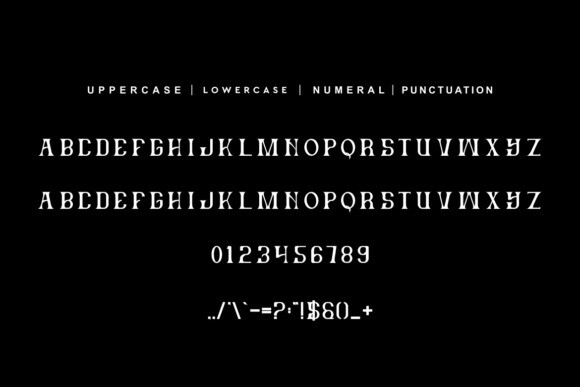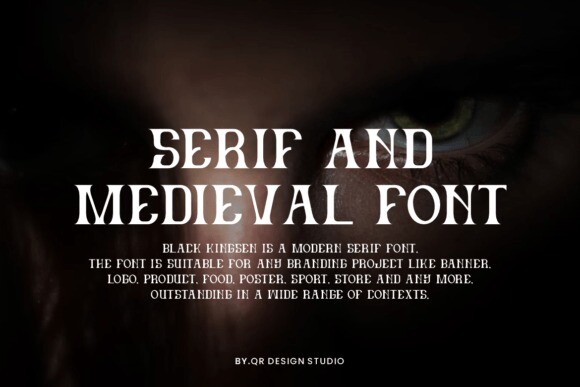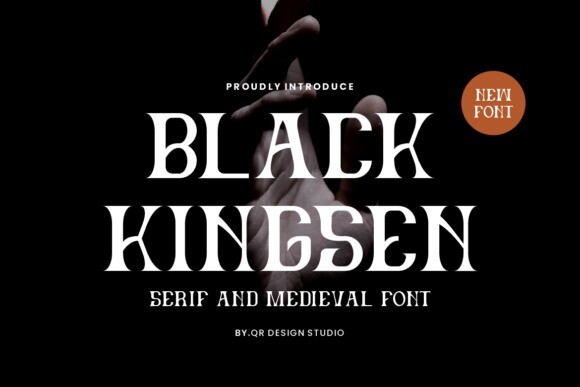
Black Kingsen Font
Designer: qrdesignstd
Black Kingsen Font is an elegant and bold serif font. Fall in love with its incredibly versatile style and use it to create gorgeous wedding invitations, beautiful stationary art, eye-catching social media posts, and much more!